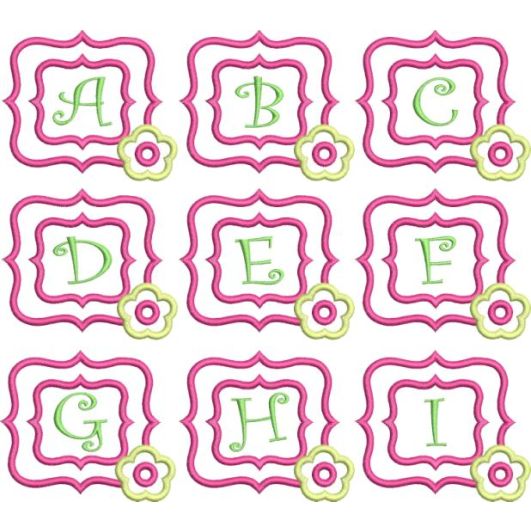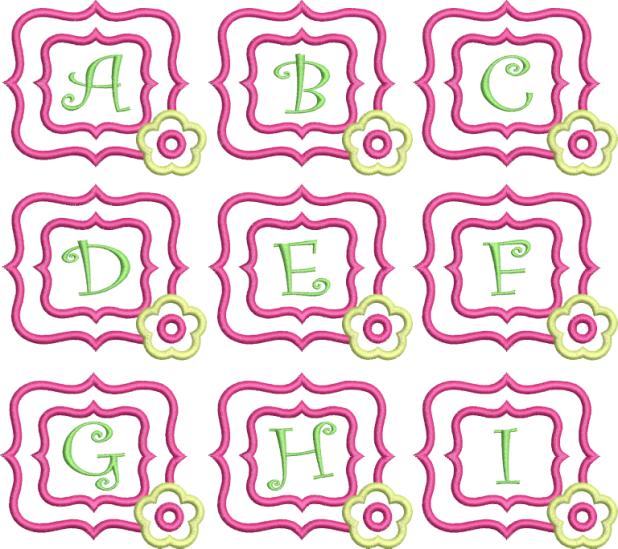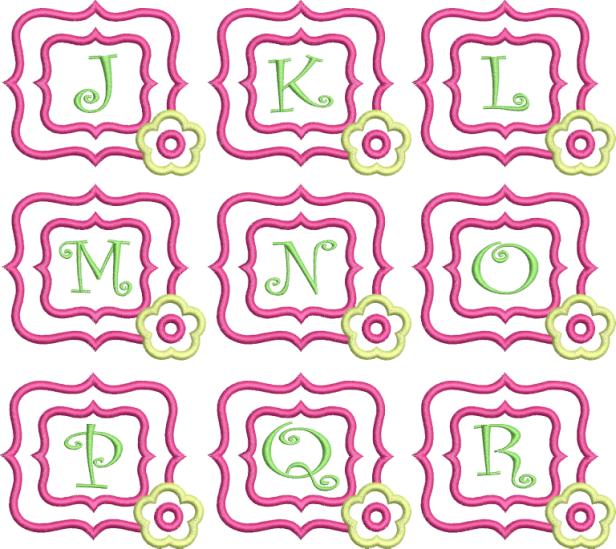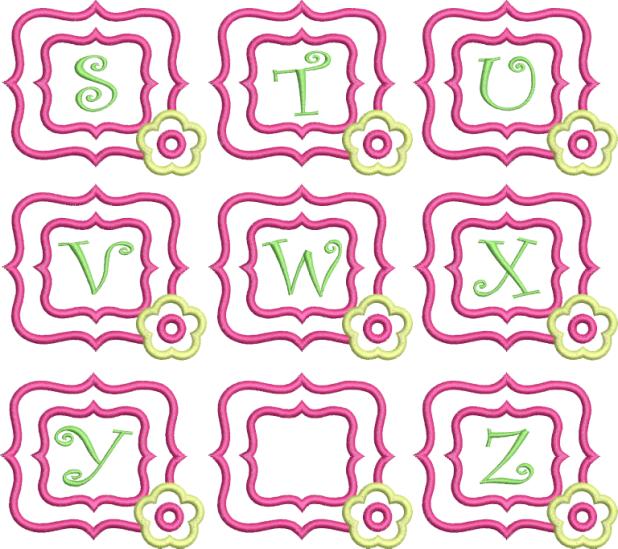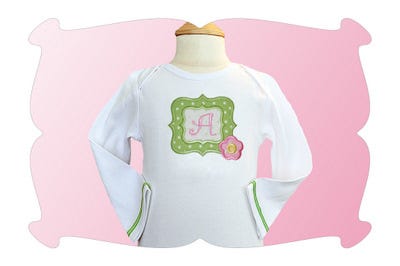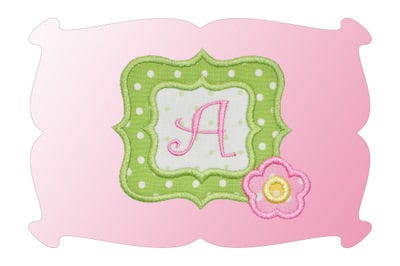
Flower Monogram Font Frame Applique
This is a darling design for all flower lovers!
The monogram font is embedded onto the design for you so there is no fussing with your software.
Included are capital letters A thru Z, embedded onto the design for you.
You will also receive a blank frame.